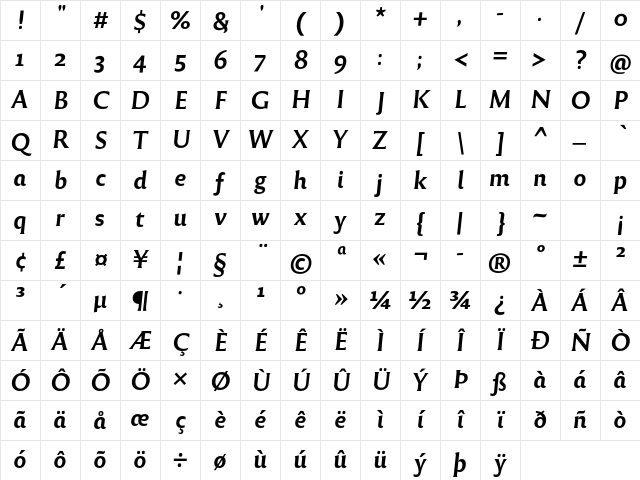
Reforma 1969 Negra Italica
Style: Negra Italica
Foundry: PampaType font foundry
Designer: Alejandro Lo Celso
Design Context for Reforma 1969
Reforma 1969 is a composed and adaptable typeface that performs quietly and consistently across a wide range of design contexts. The slanted form adds forward momentum and visual energy.
Pro Tip: Use Reforma 1969 for emphasis, pull quotes, and subheadings where its slanted energy can add rhythm to the layout.